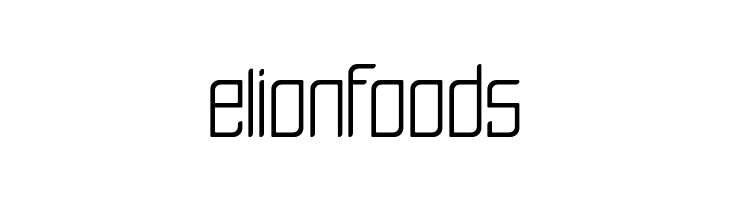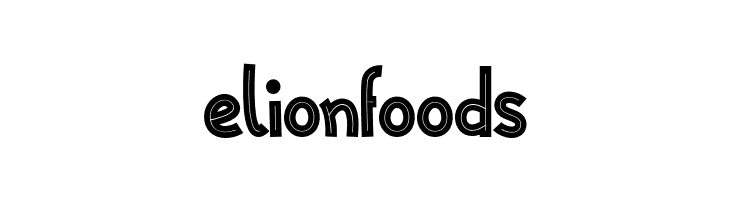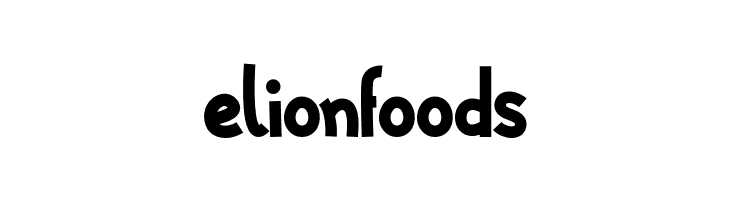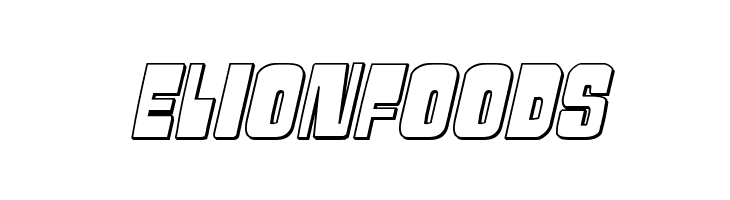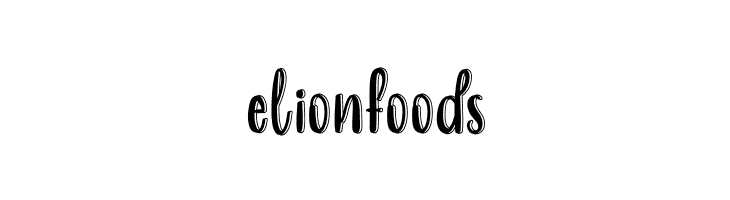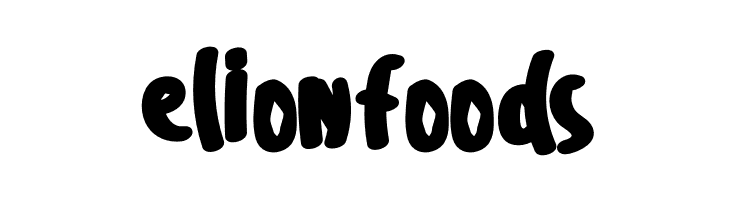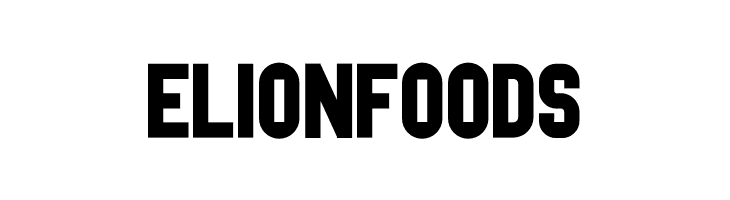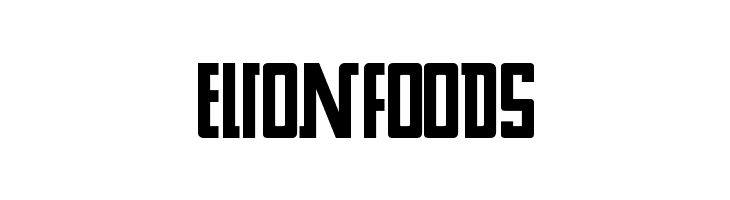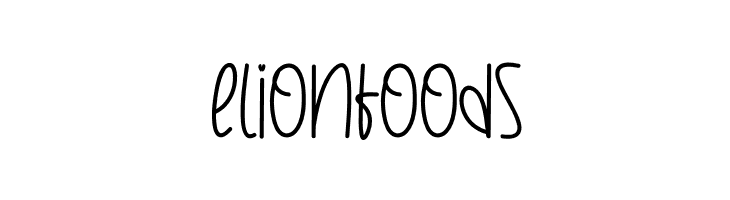
A modern, geometric font with clean lines and rounded corners, offering a futuristic and minimalistic style.
A geometric and modern font with angular uppercase and rounded lowercase letters.
A playful, bold font with rounded, cartoonish letterforms.
A playful and whimsical font with bold, rounded letterforms and creative flair.
A bold, 3D italic font with outlined characters, ideal for dynamic and impactful designs.
A playful, bold font with rounded, hand-drawn letterforms.
A bold, playful handwritten font with rounded characters.
A bold, geometric sans-serif font with strong, uniform strokes.
A bold, geometric font with strong, uniform strokes and a modern style.
A playful, handwritten font with tall, narrow letters and a whimsical style.